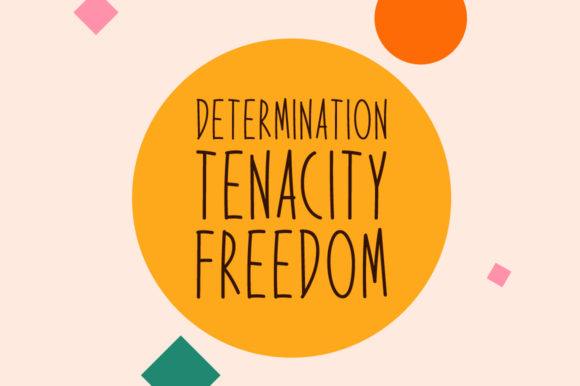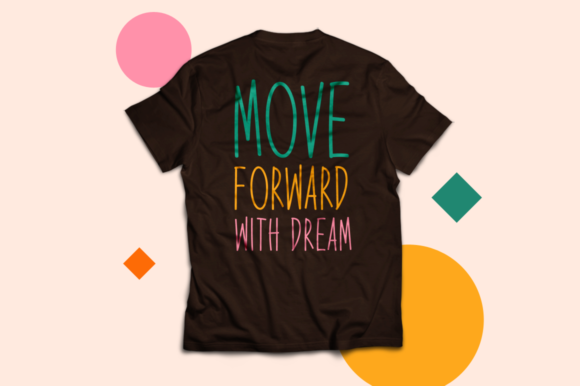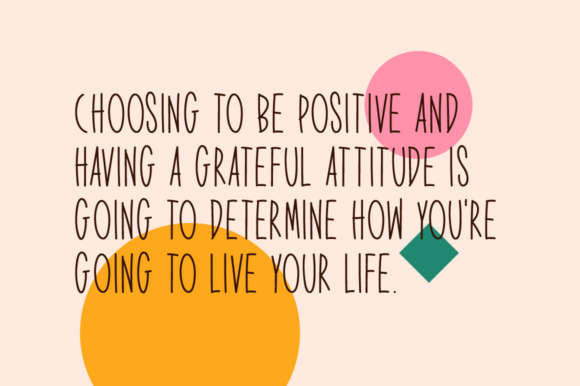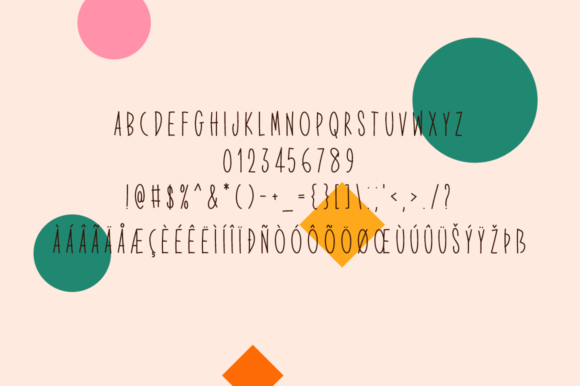
Expression Exchange Font
About Expression Exchange Font
Introducing Expression Exchange! This brand new handwritten font is crafted with precision, making it a perfect fit for a wide range of creative projects. Expression Exchange is well-suited for various applications, including stationery, logos, t-shirts, paper, print design, website headers, photo frames, flyers, music covers, posters, image sliders, and much more.
The charm of Expression Exchange lies in its handwritten style, adding a personal and authentic touch to your designs. Whether you’re working on a logo, enhancing stationery, or creating eye-catching posters, this font brings a unique character that captivates and engages.
For branding projects, Expression Exchange becomes a distinctive element in establishing a memorable and approachable brand identity. Its handwritten charm communicates authenticity, making your brand more relatable and appealing to your audience.
In the realm of print design, Expression Exchange enhances various materials such as flyers, paper, and posters. The font’s versatility allows it to adapt seamlessly to different design contexts, ensuring a cohesive and visually appealing look.
On apparel like t-shirts, Expression Exchange becomes a stylish choice for adding a handwritten flair. Whether you’re incorporating quotes or creating unique designs, this font brings a trendy and artistic dimension to fashion items.
Website headers and image sliders benefit from Expression Exchange’s engaging and friendly handwritten style, making it an excellent choice for creating an inviting online presence.
Expression Exchange is not just a font; it’s a versatile design tool that adds a touch of character and warmth to all your creative projects. From music covers to photo frames, let Expression Exchange be the conduit for your creative expressions, allowing you to infuse your designs with a handwritten charm that stands out. Embrace the uniqueness of Expression Exchange as you explore its potential across a diverse range of creative endeavors.